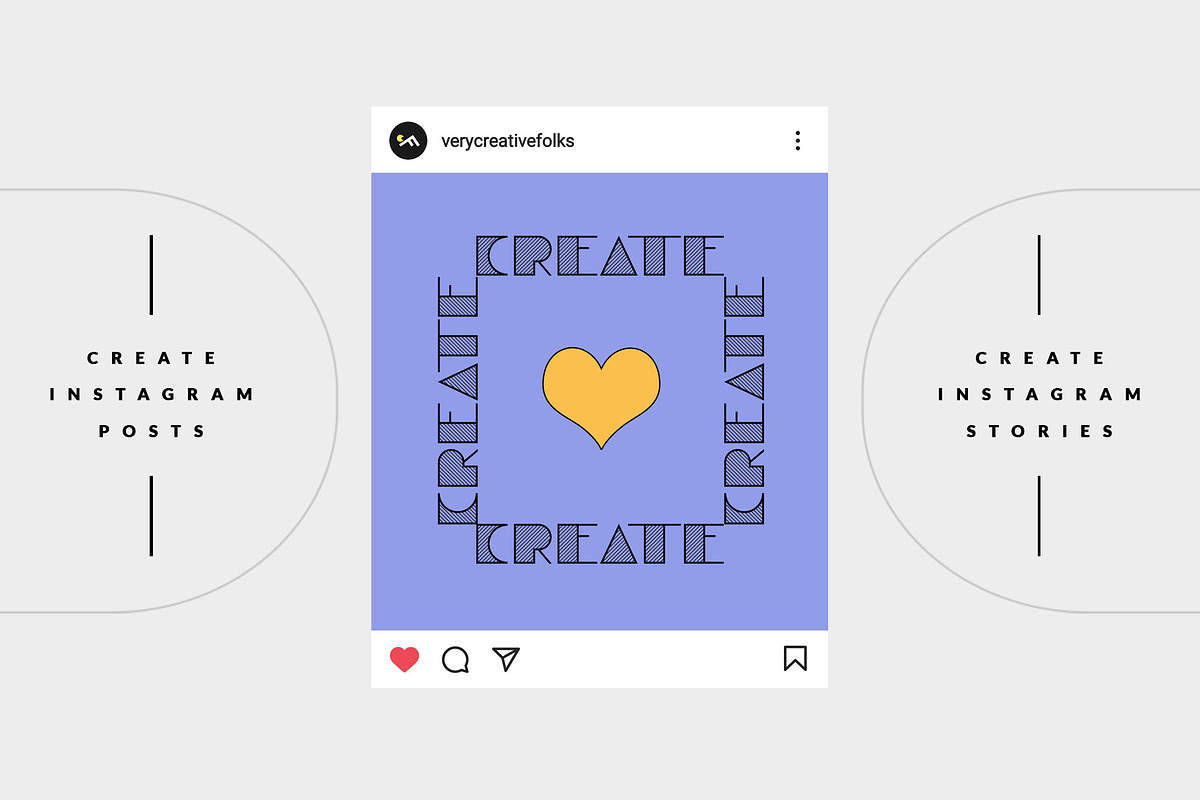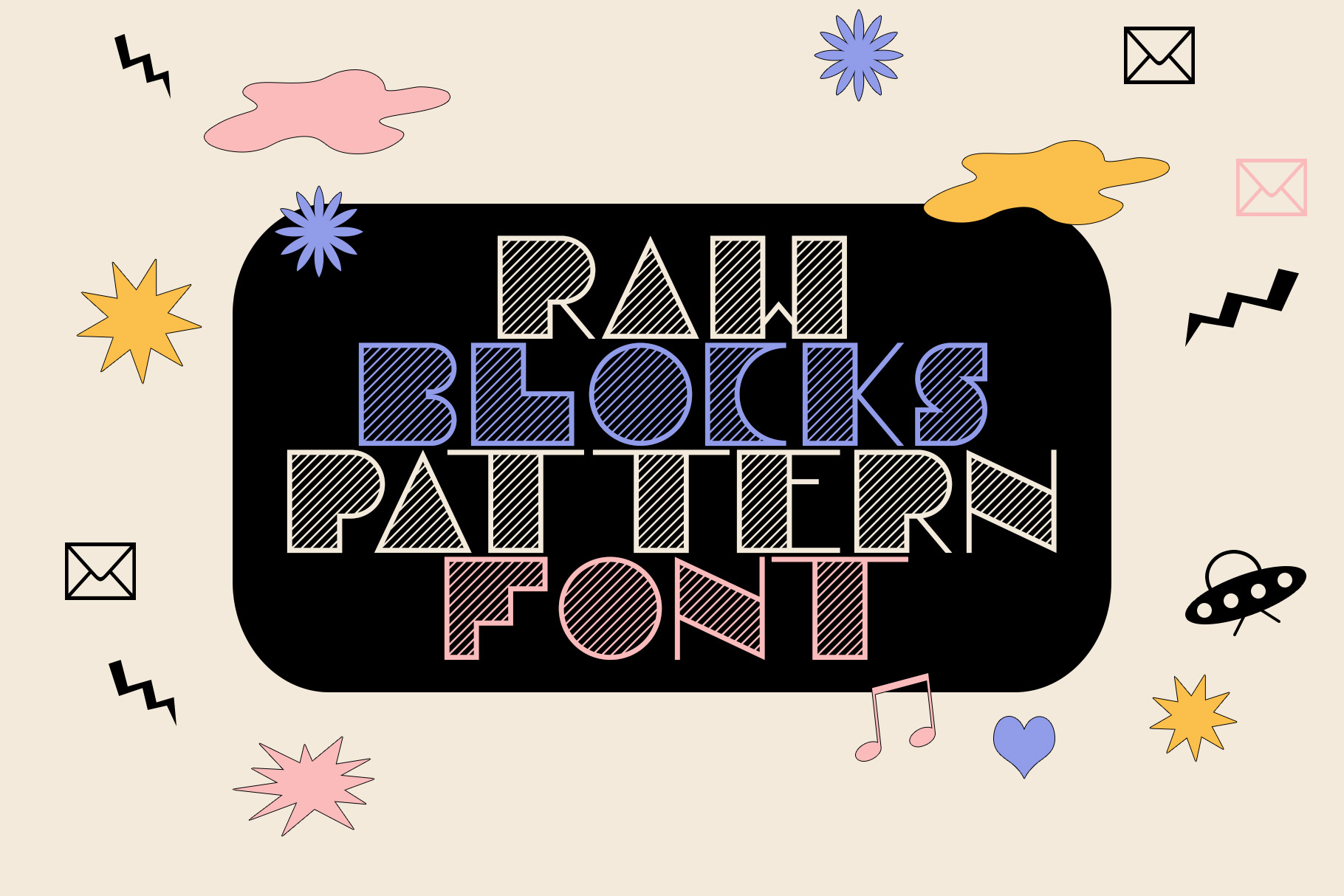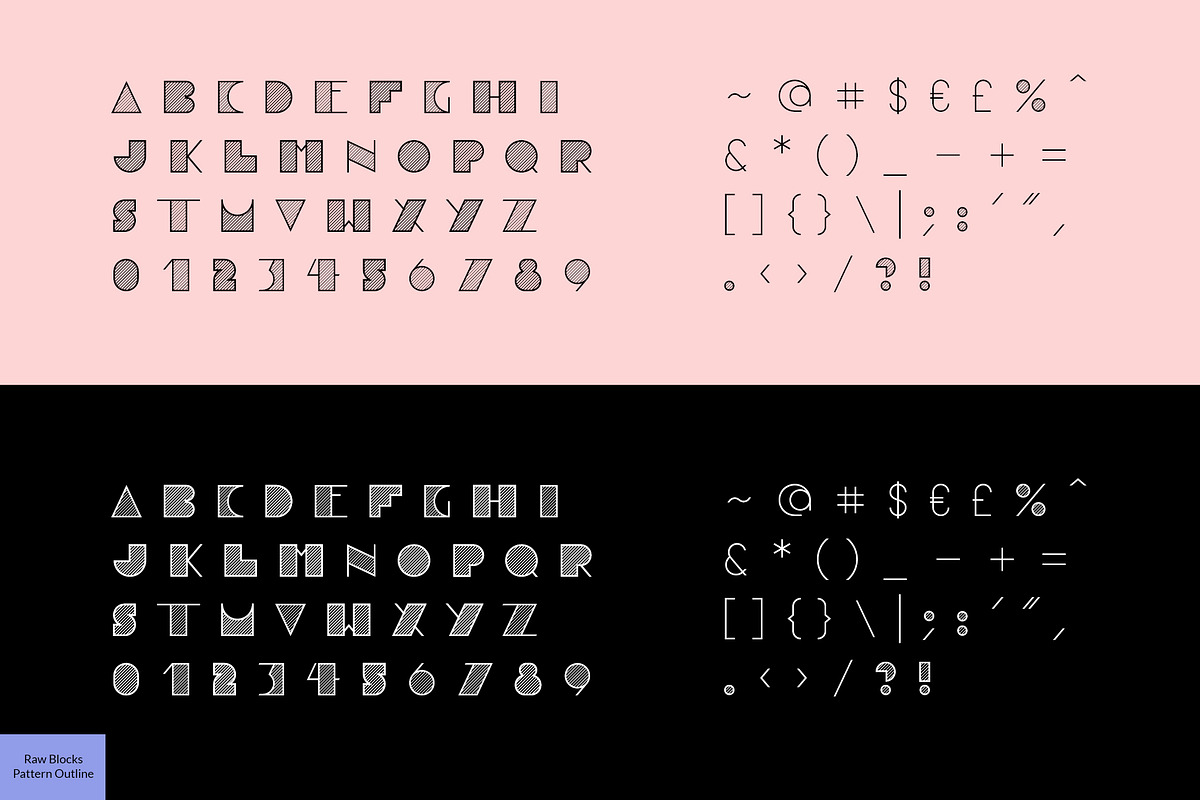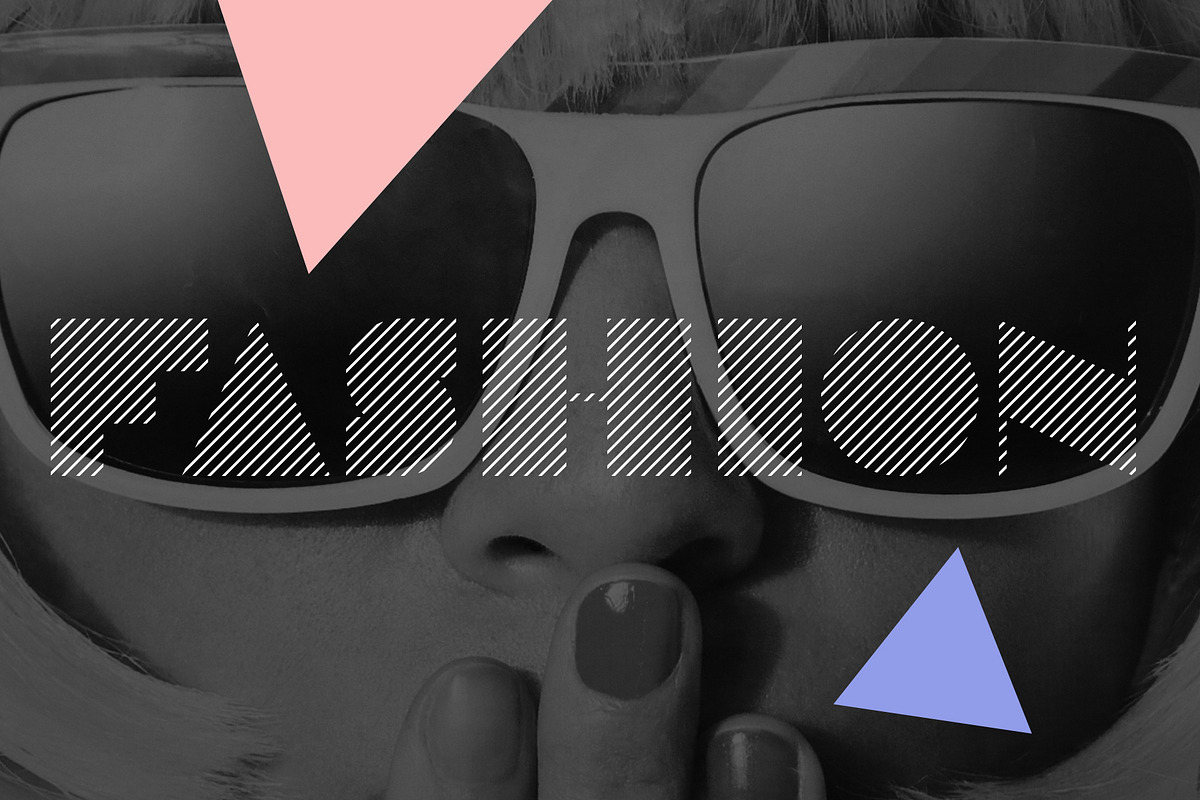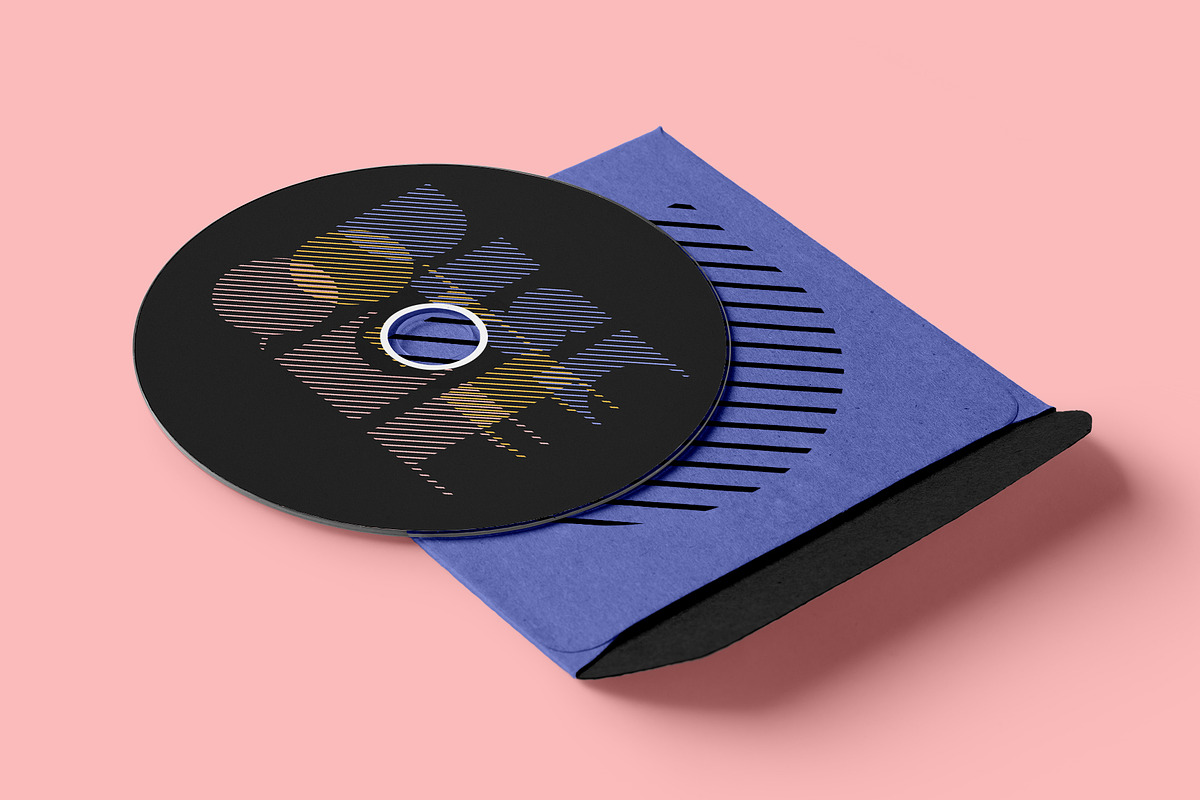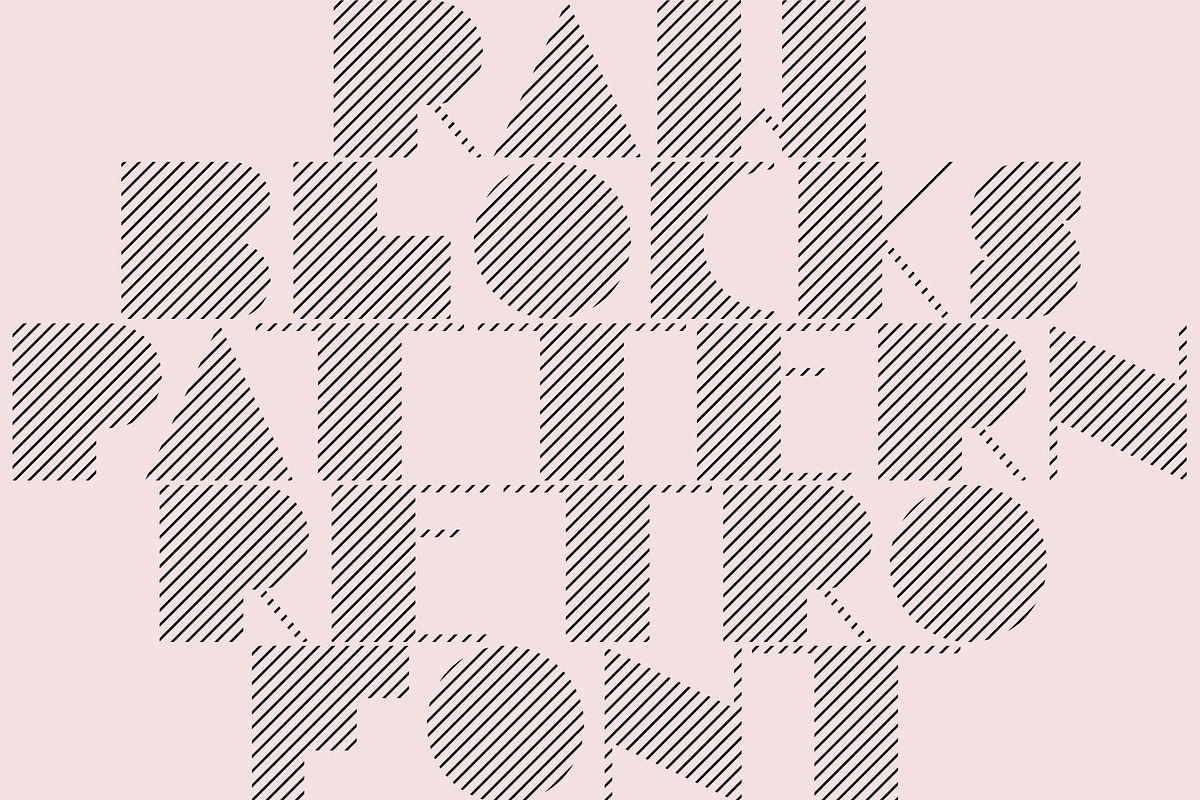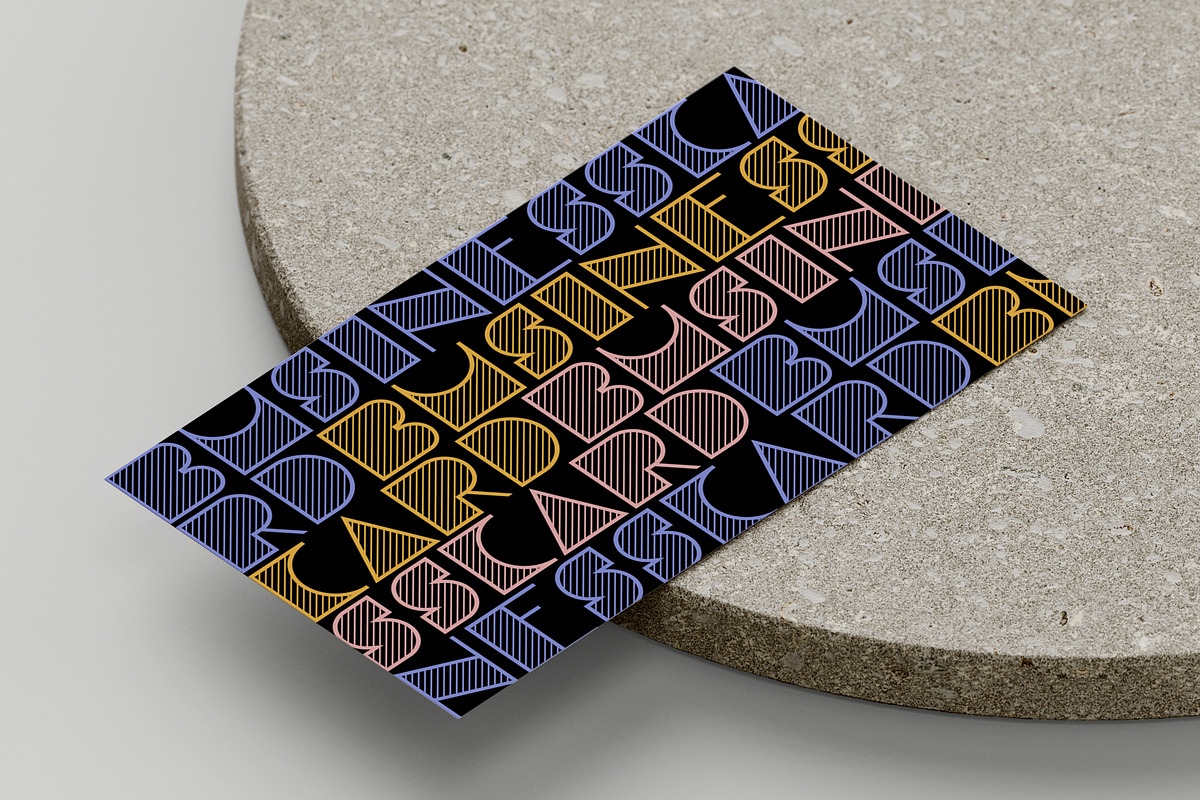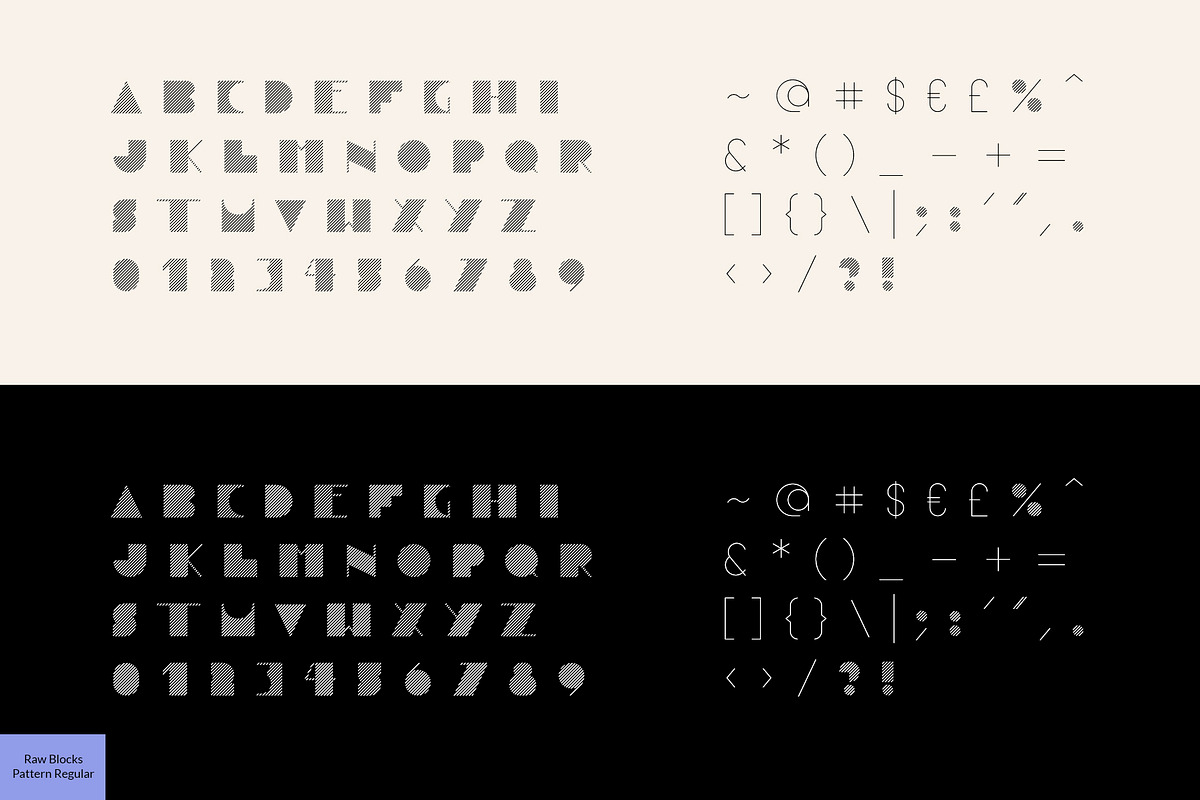
Classy Retro Font-Raw Blocks Pattern
Introducing trendy vintage pattern fonts "Raw Blocks Pattern Regular" and "Raw Blocks Pattern Outline". These retro style typefaces were created using various shapes - rectangles, circles & triangles. Main focus - striped pattern. Use "Raw Blocks Outline Pattern“ when you need to give a trendy luxury or elegant feel to your designs.
This uppercase font works great in trendy, modern or minimalist design styles when you need a good accent for titles, headlines. It’s great for various print and web projects - blogs, invitations, flyers, posters, short quotes in social media, brochures, packaging, business cards, etc.